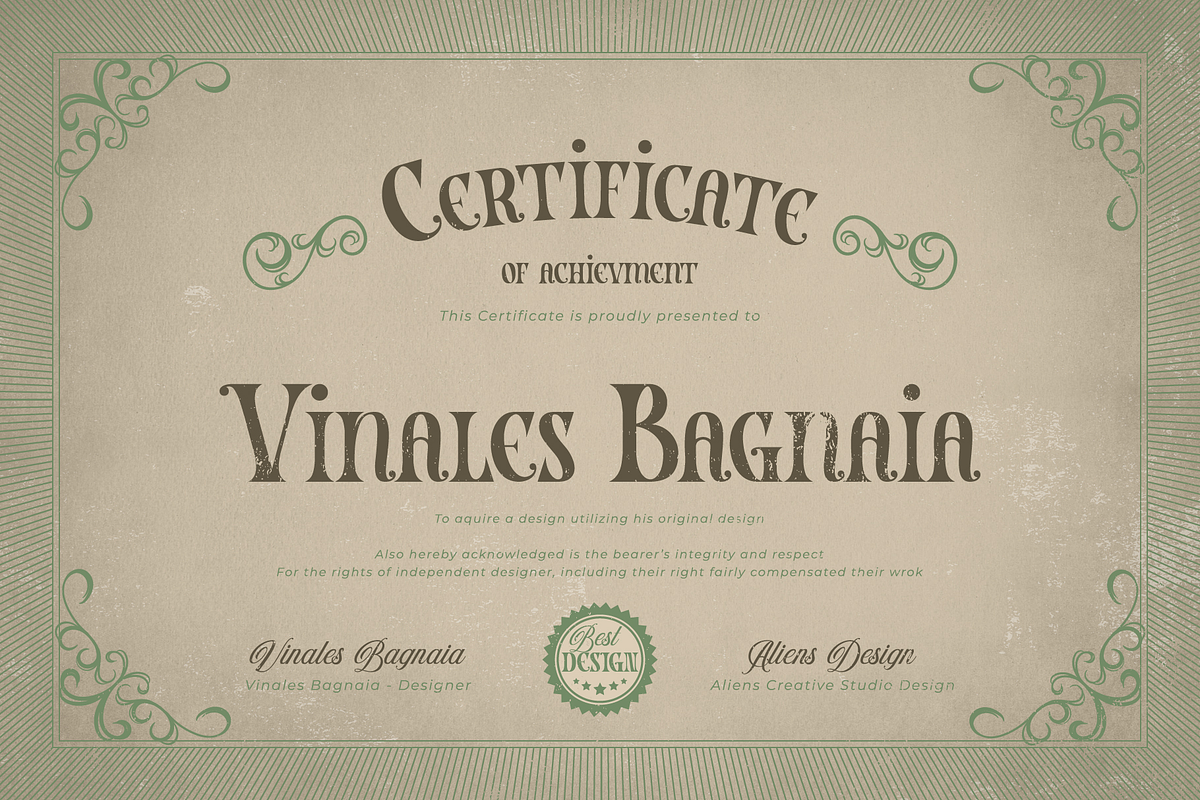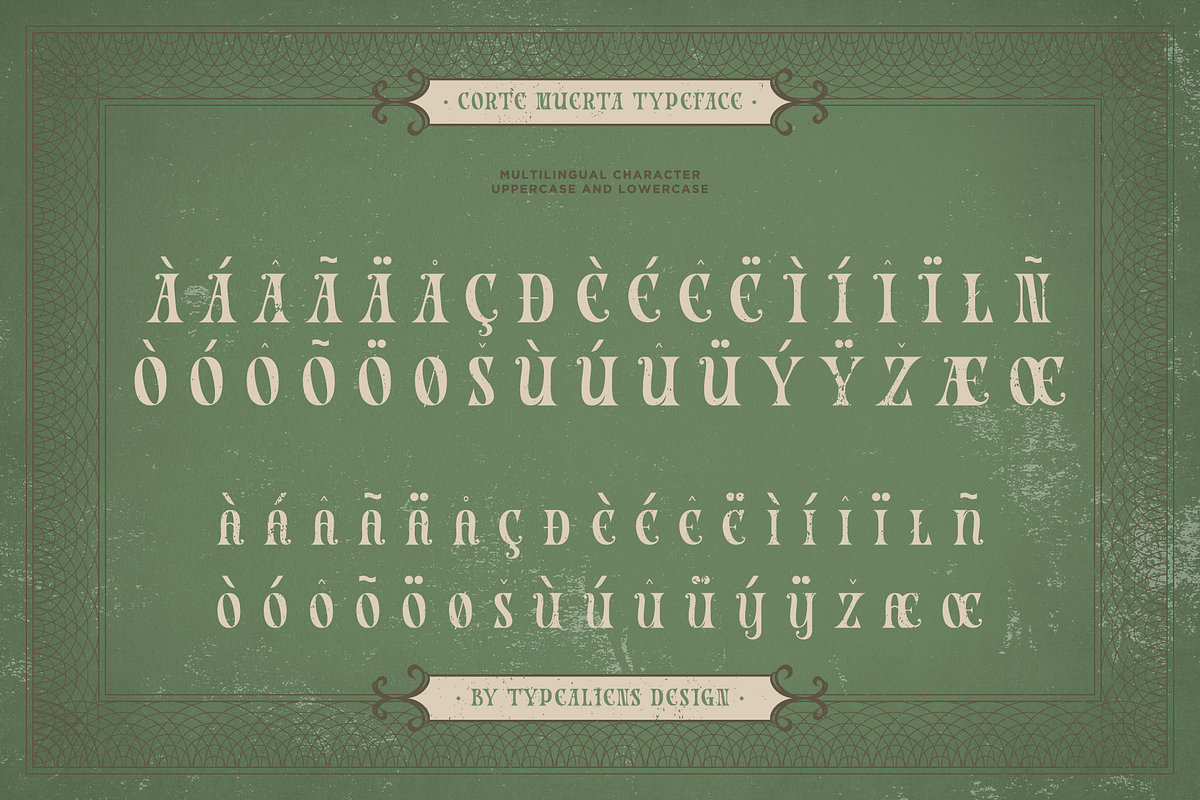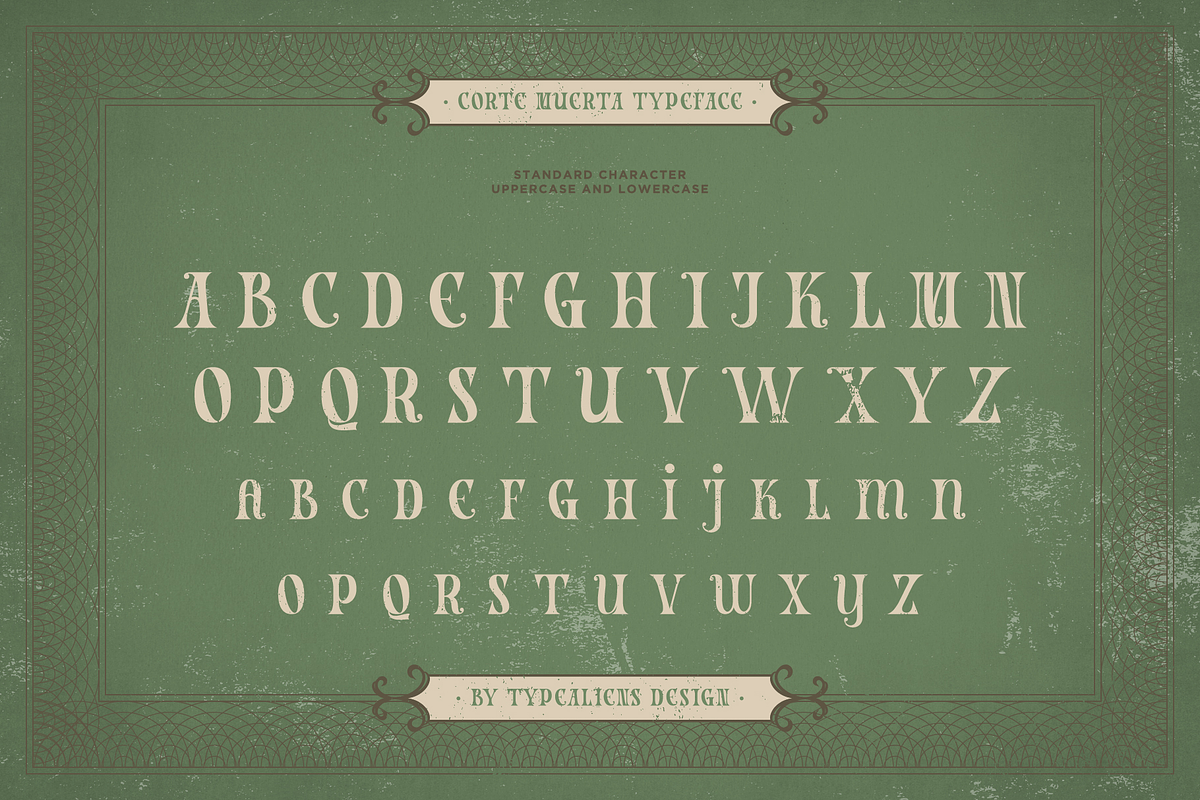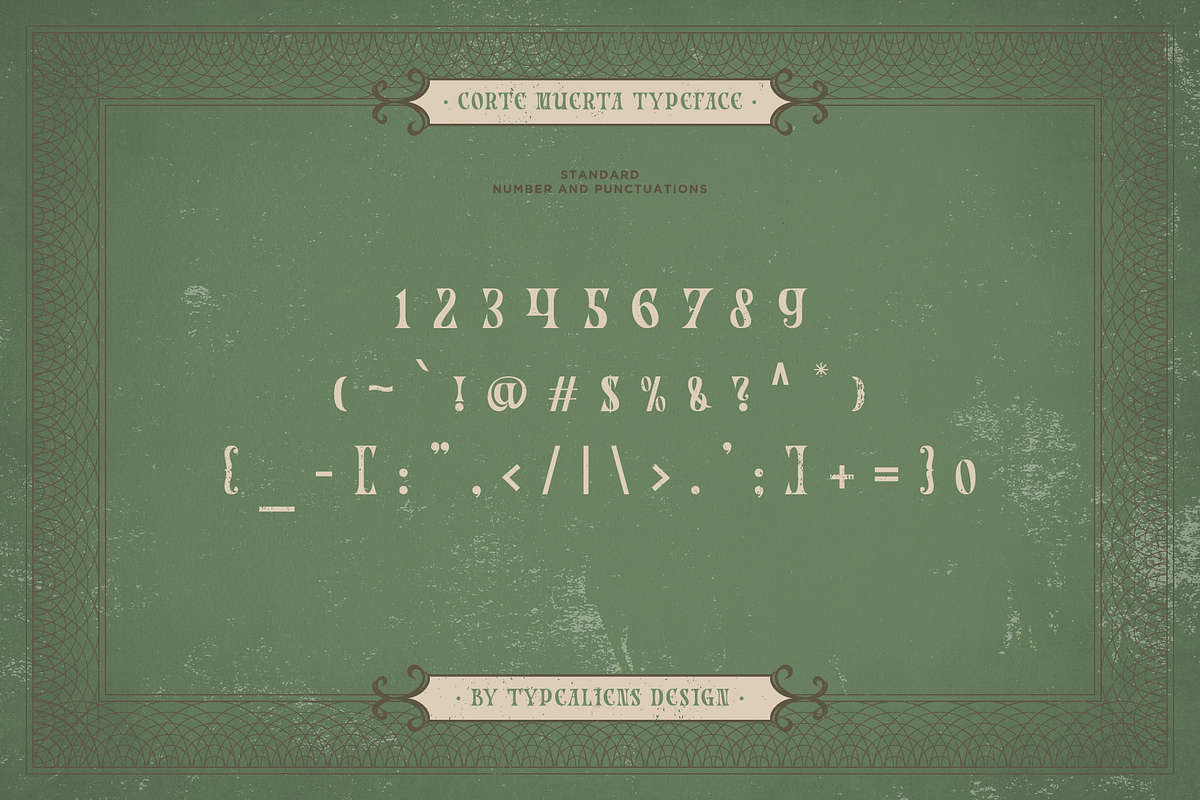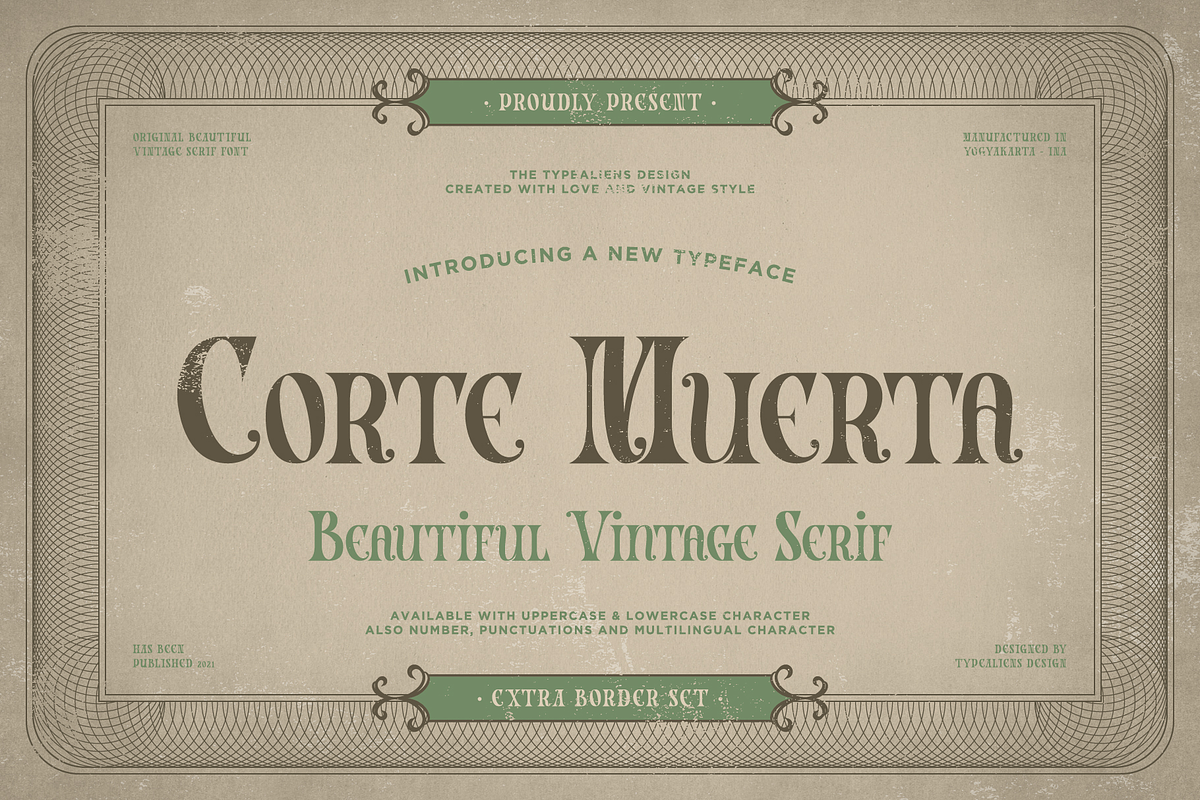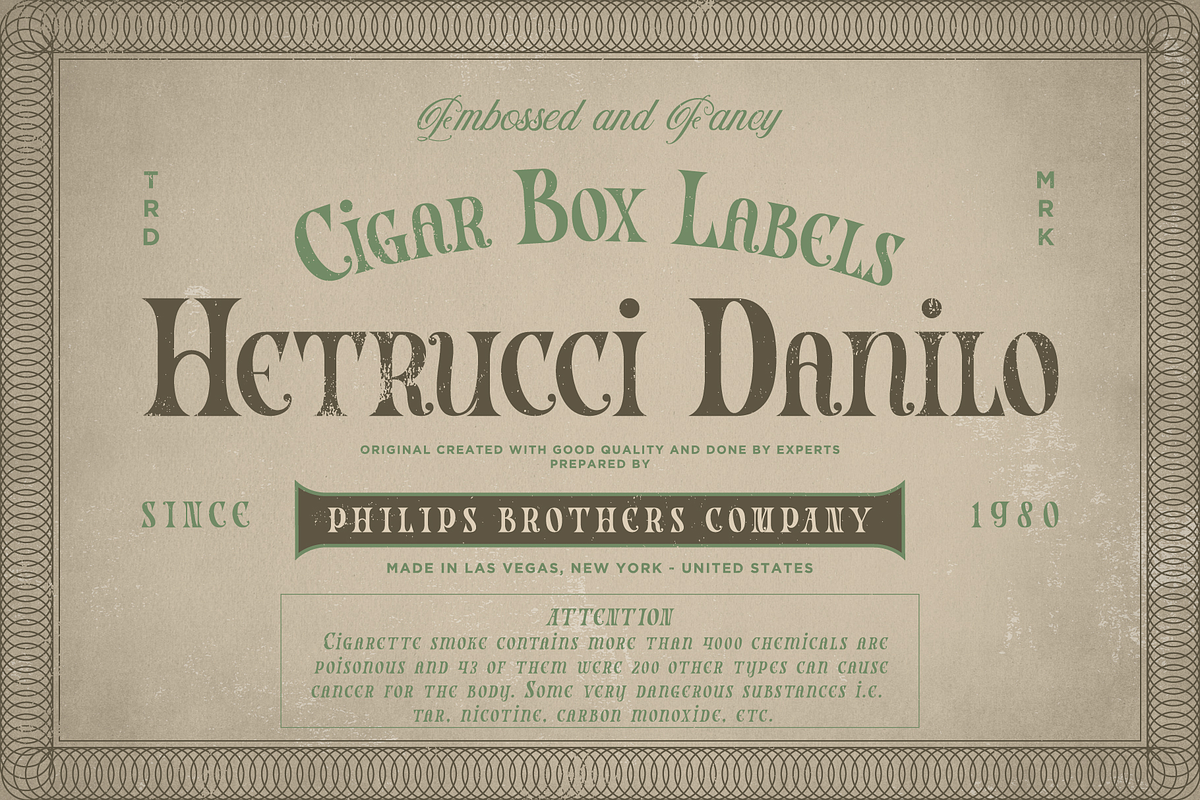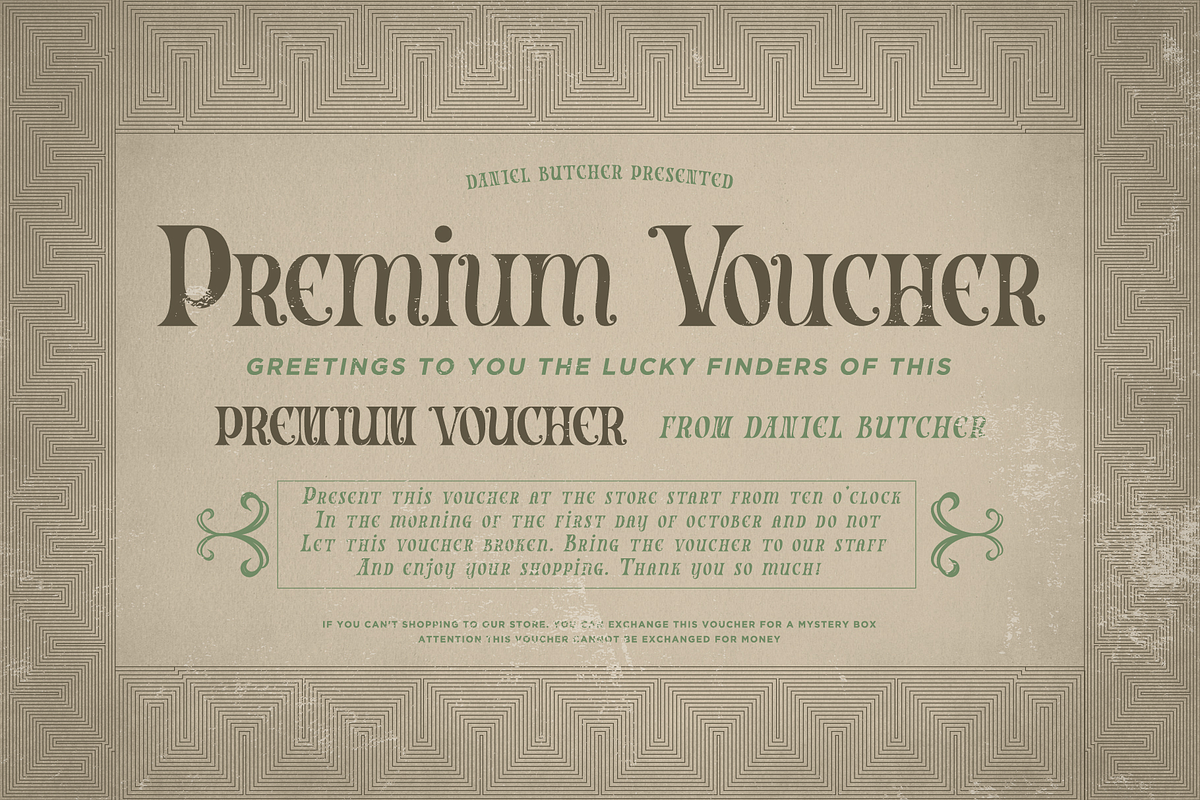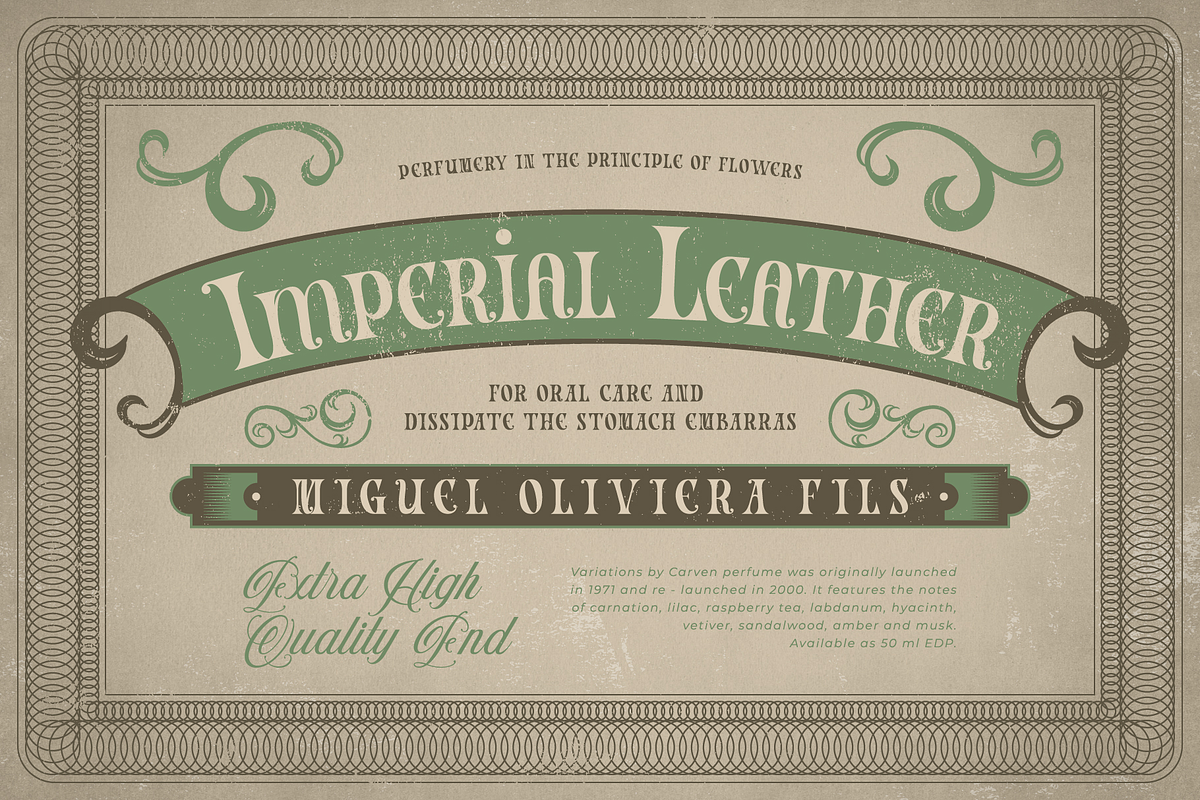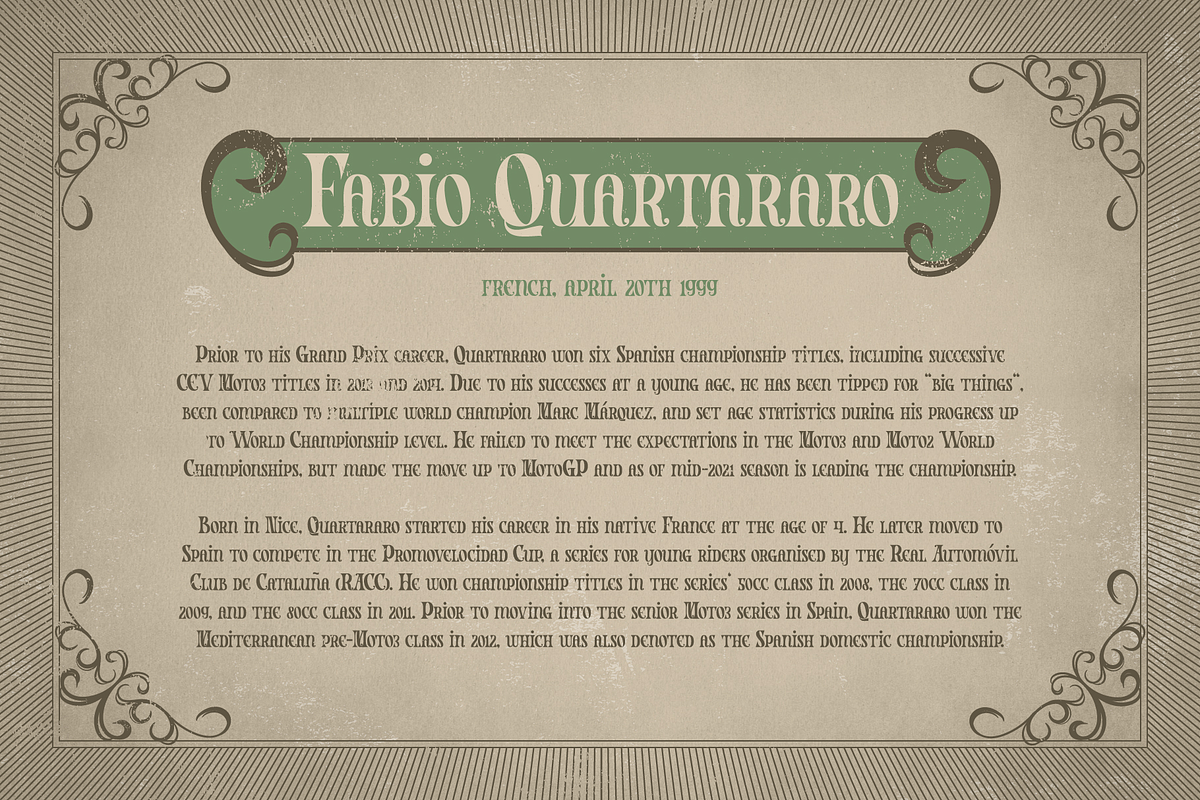
Corte Muerta
CORTE MUERTA
Corte Muerta is a serif font that is very unique, with the basic form of a serif font with hooks that have a little ornament in some letters that makes this font different from other serif fonts. Has a vintage feel so it is suitable for classic and retro designs.